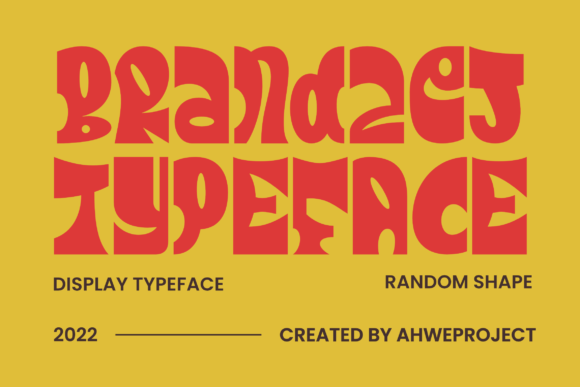
Introducing Brandzet Font - A Typographic Masterpiece for Your Creative Endeavors!
In a world saturated with mundane fonts, Brandzet Font emerges as a breath of fresh air, a font family that captivates with its unique display, perfect for crafting logos that demand attention. Its random shape design dances before the eyes, making it the ideal choice for headlines, labels, magazines, books, and more.
With Brandzet Font, your designs will radiate individuality and flair. Imagine your logo, the face of your brand, rendered in this remarkable font, commanding attention and leaving an unforgettable impression. Let Brandzet Font be your artistic ally, transforming your creative visions into captivating realities.
Whether you're a seasoned designer or just starting, Brandzet Font empowers you to create designs that stand out from the crowd. Its versatility extends to a wide range of applications, from fashion and makeup to stationery and novels. Unleash your creativity and explore the endless possibilities that await.